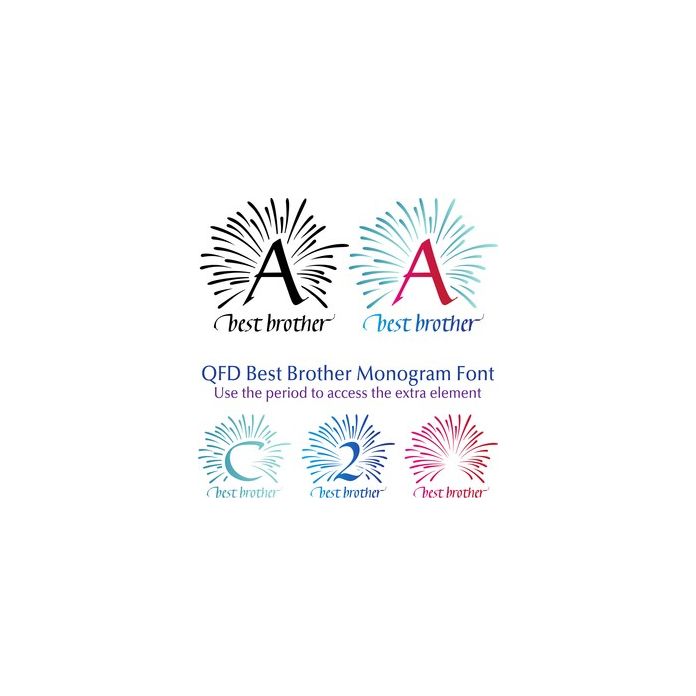
Use the period to access the blank element. Perfect for gift tags, cards, pillows, invitations, wall art, t-shirts, mugs and anything else you can think of.